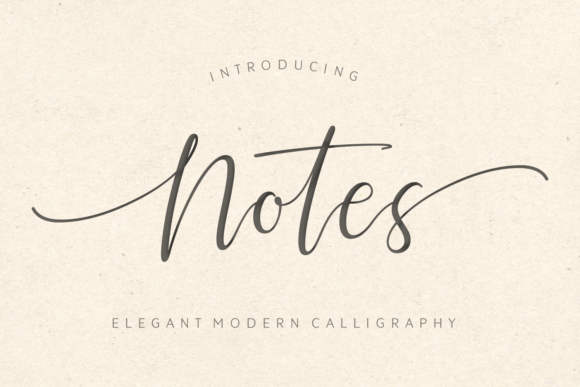
Looking for the best fonts for your resume? Look no further than Notes Font, the elegant and charming script font that will take your documents to the next level. Created by Situjuh, Notes Font is the perfect way to elevate your resume and make it stand out from the competition.
Notes Font is more than just a font – it's a work of art. With its ravishing style and graceful curves, this font is the perfect choice for any project that requires a touch of elegance and sophistication. Whether you're creating gorgeous wedding invitations, beautiful stationary art, or eye-catching social media posts, Notes Font will help you bring your vision to life.
But Notes Font isn't just beautiful – it's also highly versatile. With a range of weights and styles to choose from, you can use this font for everything from headlines to body copy. And with its excellent legibility, you can be sure that your readers will be able to read your message loud and clear.
So why settle for a boring, generic font when you can make a statement with Notes Font? Whether you're looking to impress potential employers, create stunning designs, or simply add a touch of elegance to your documents, Notes Font is the perfect choice. Try it today and see the difference for yourself!